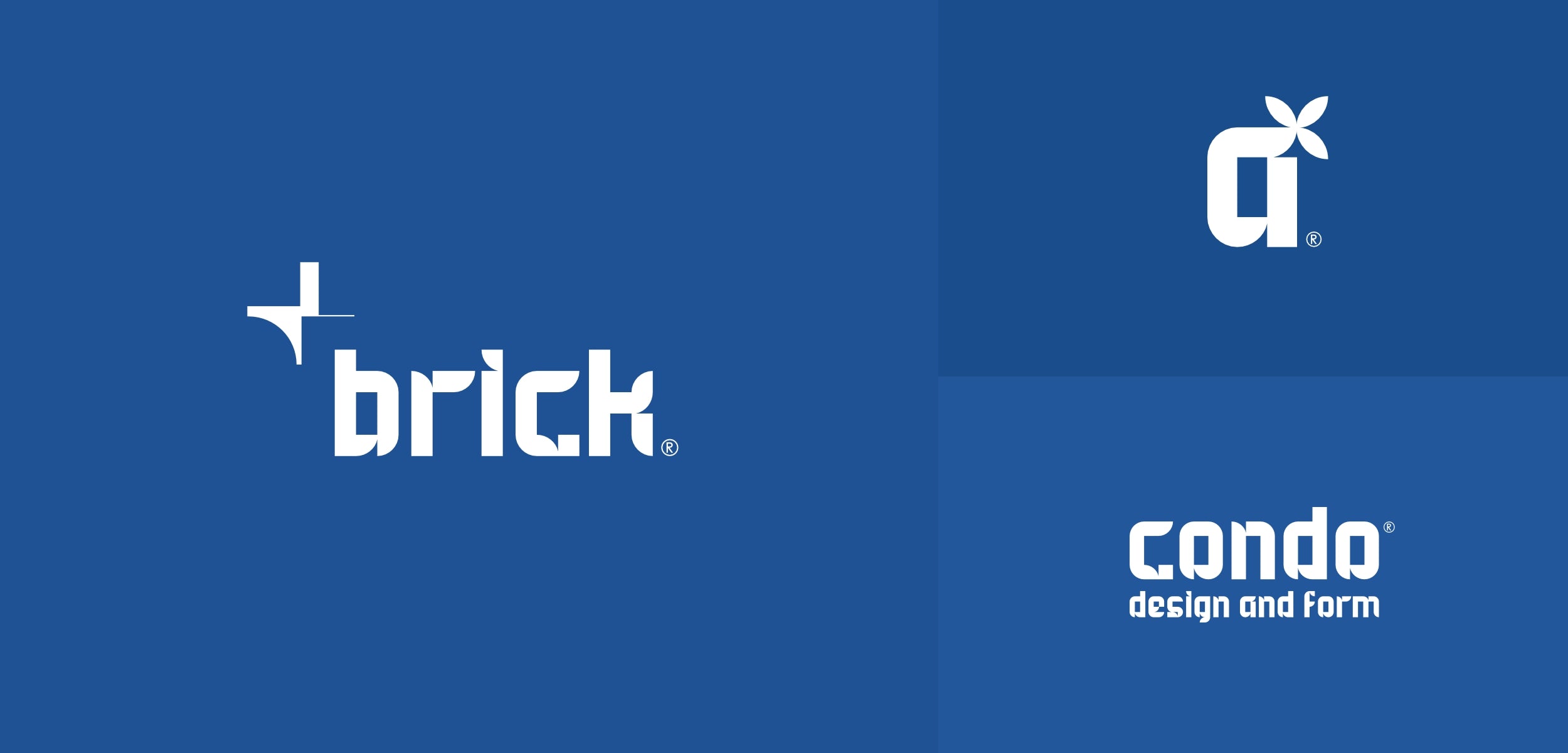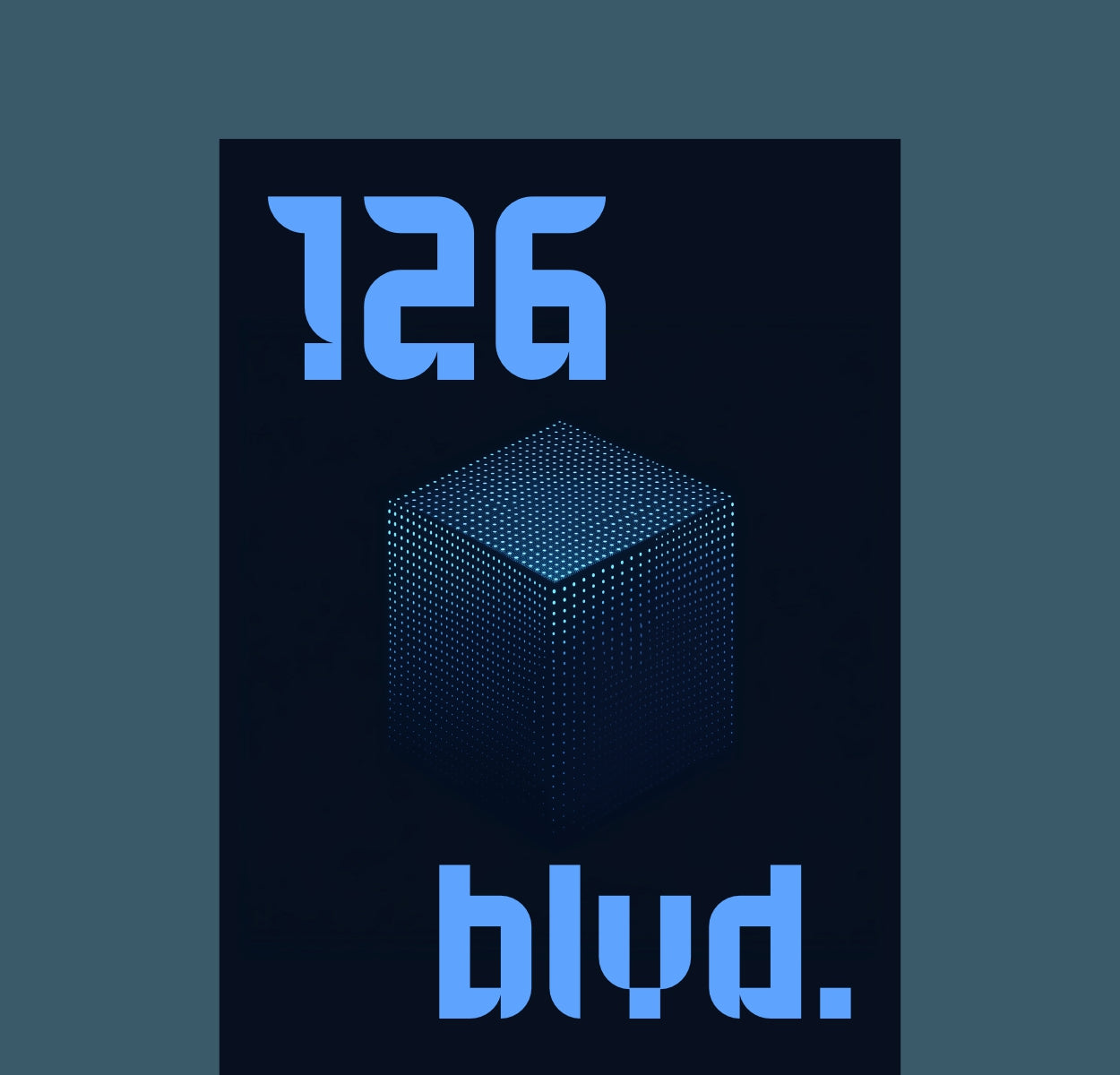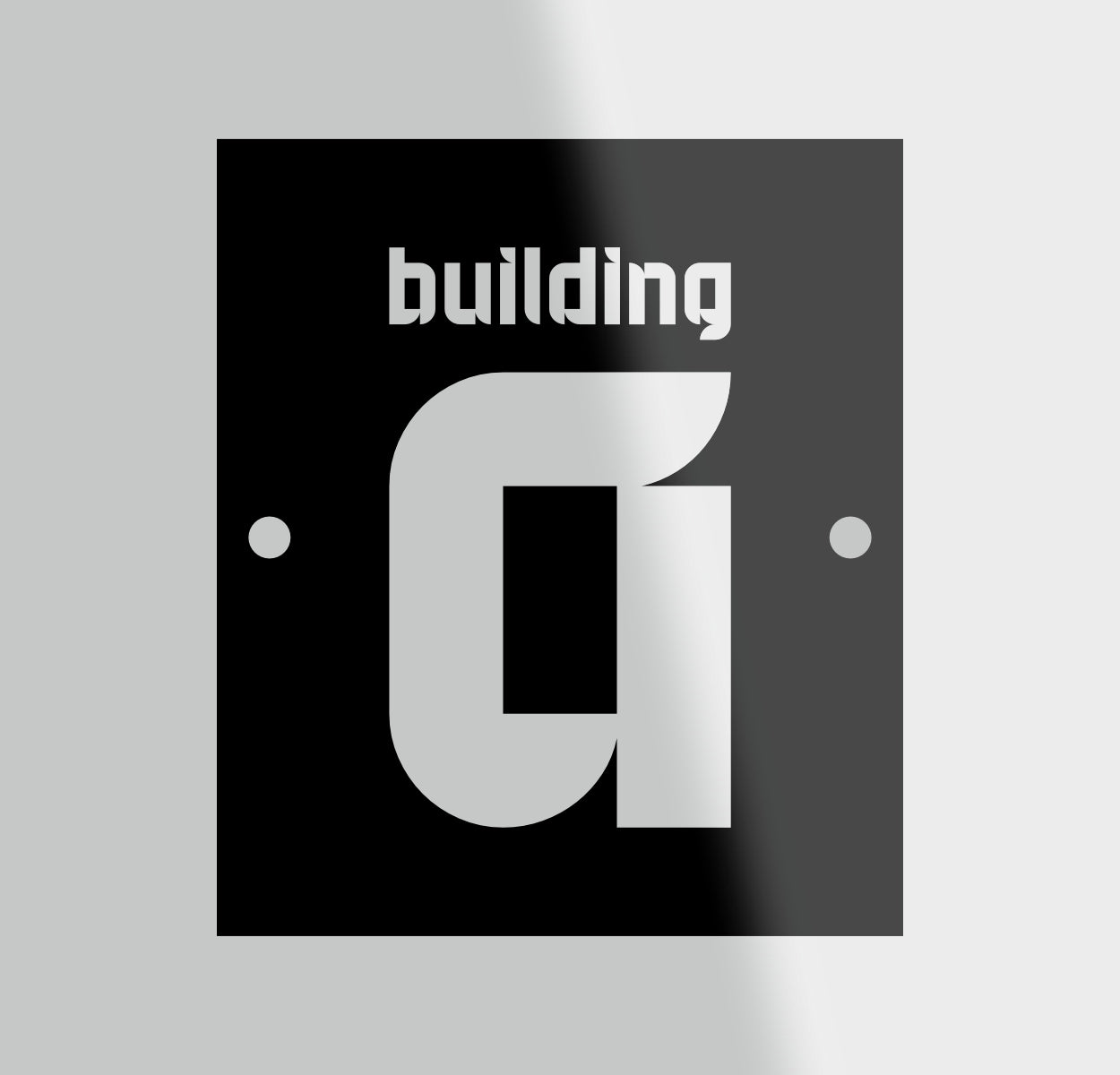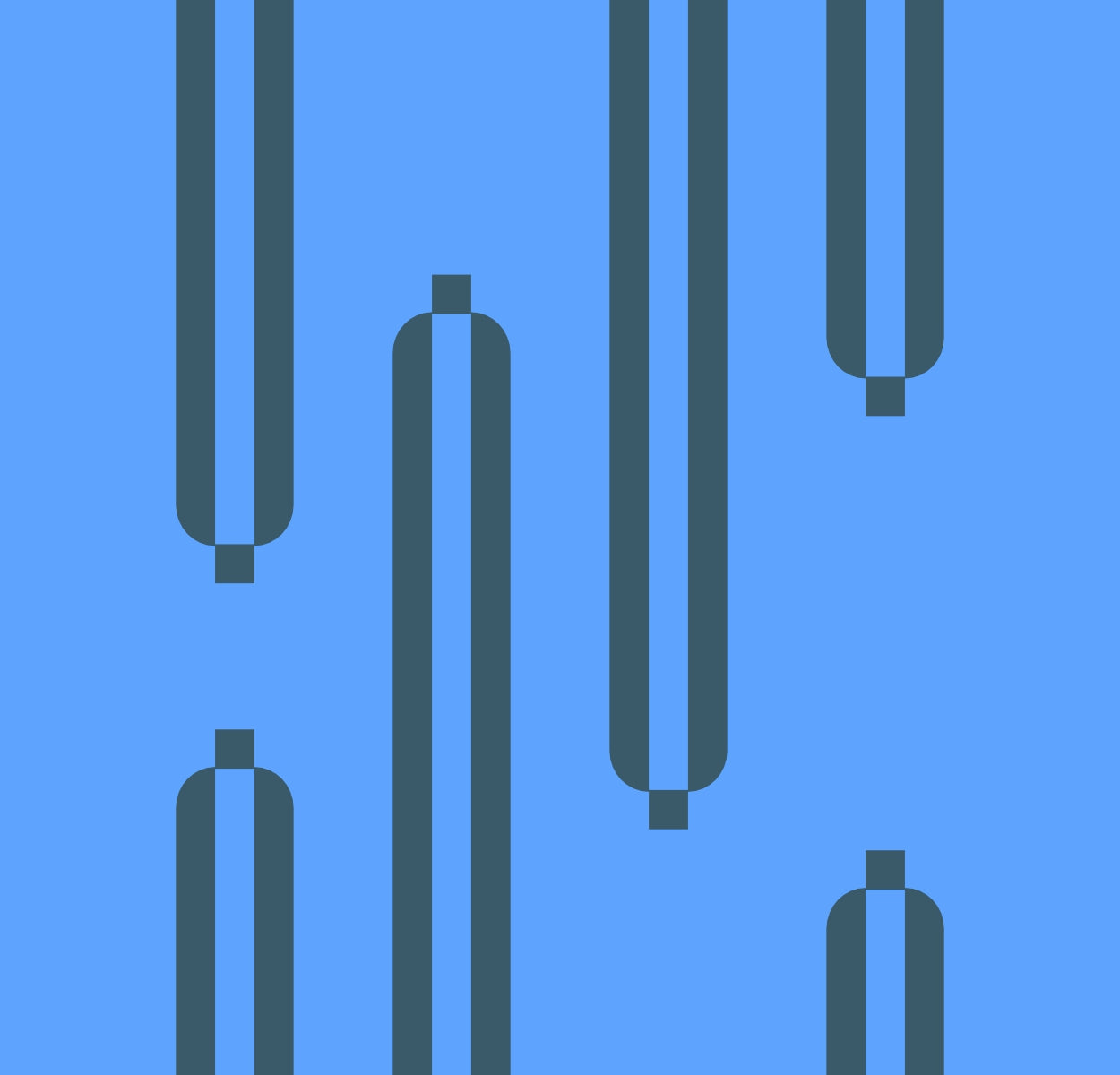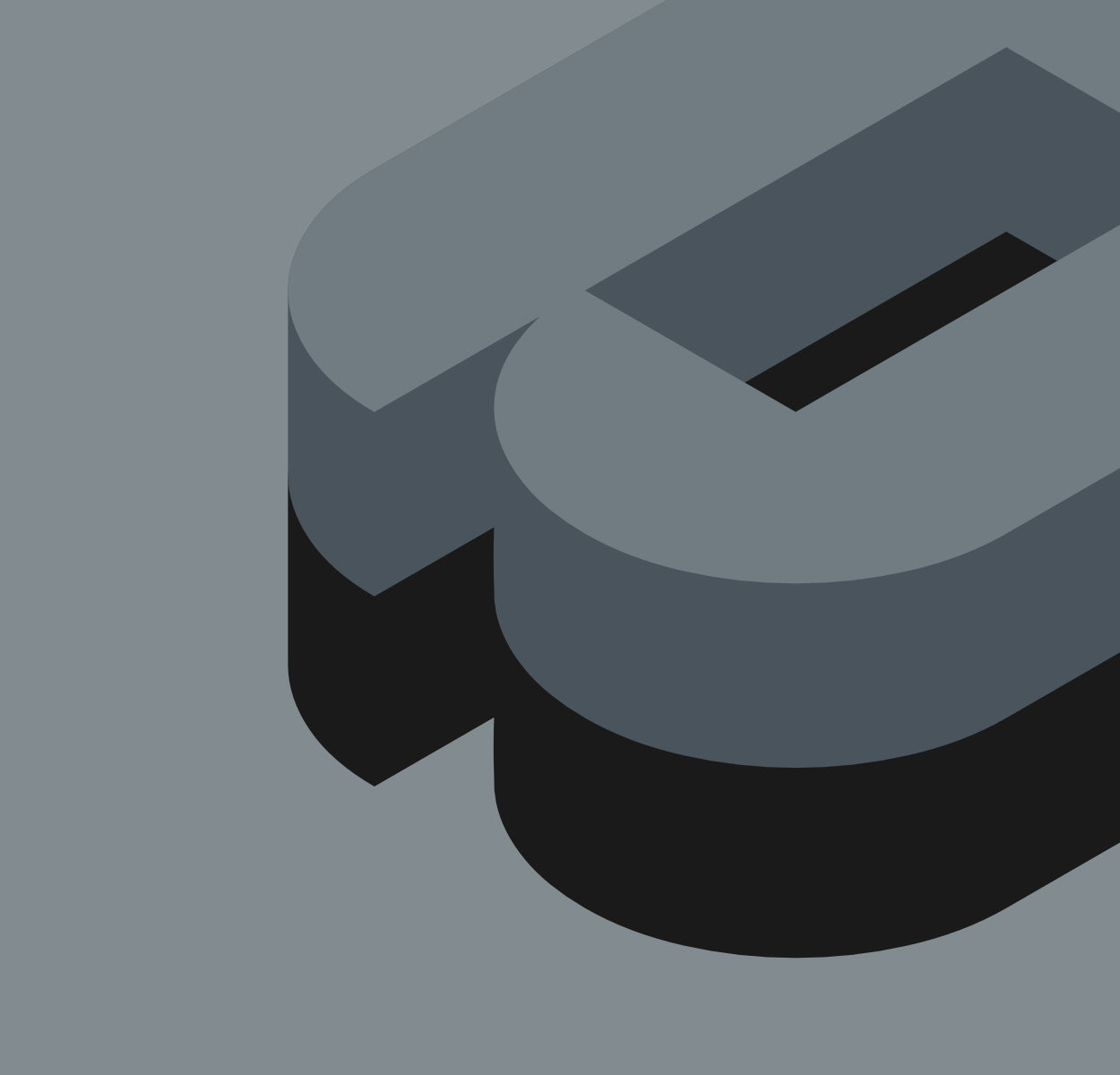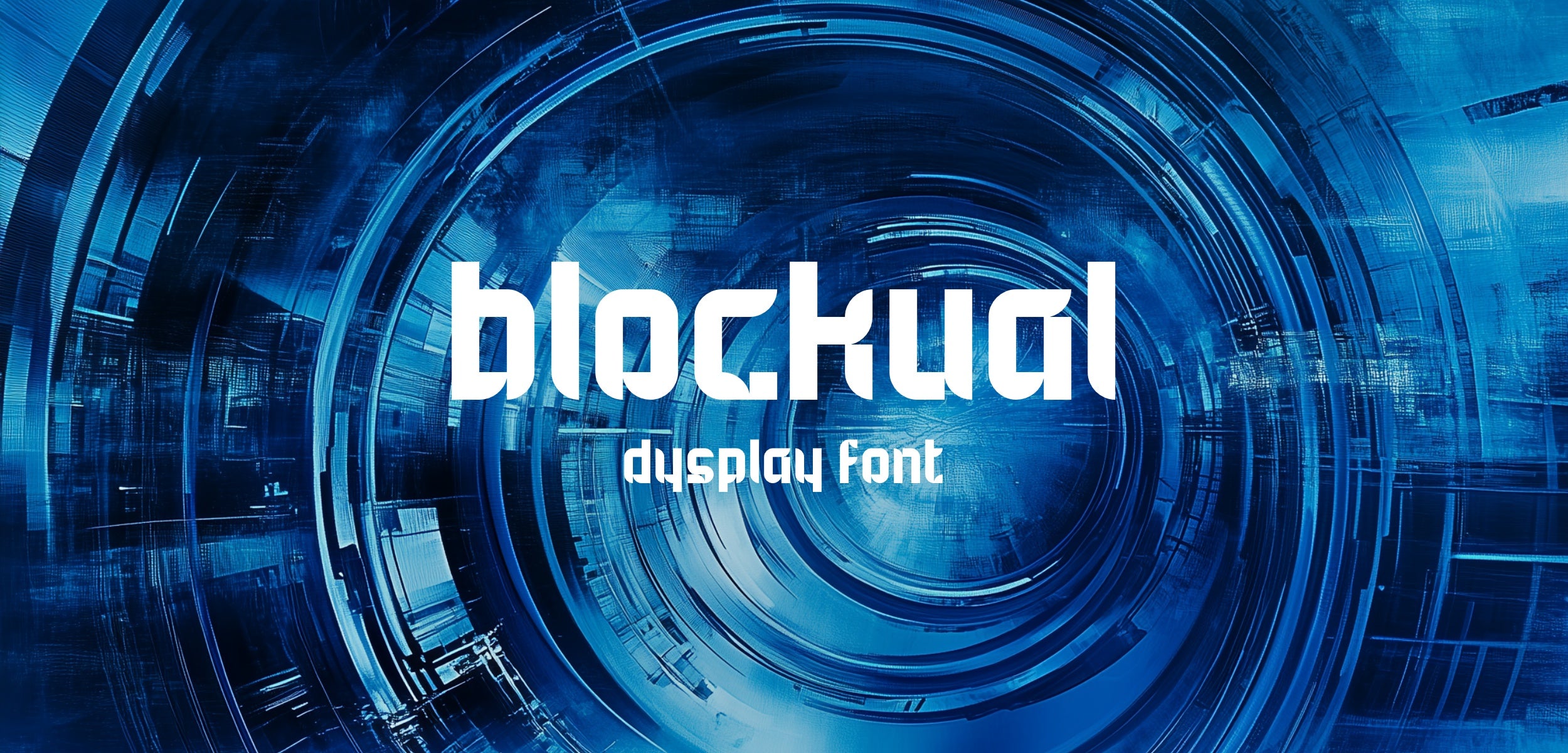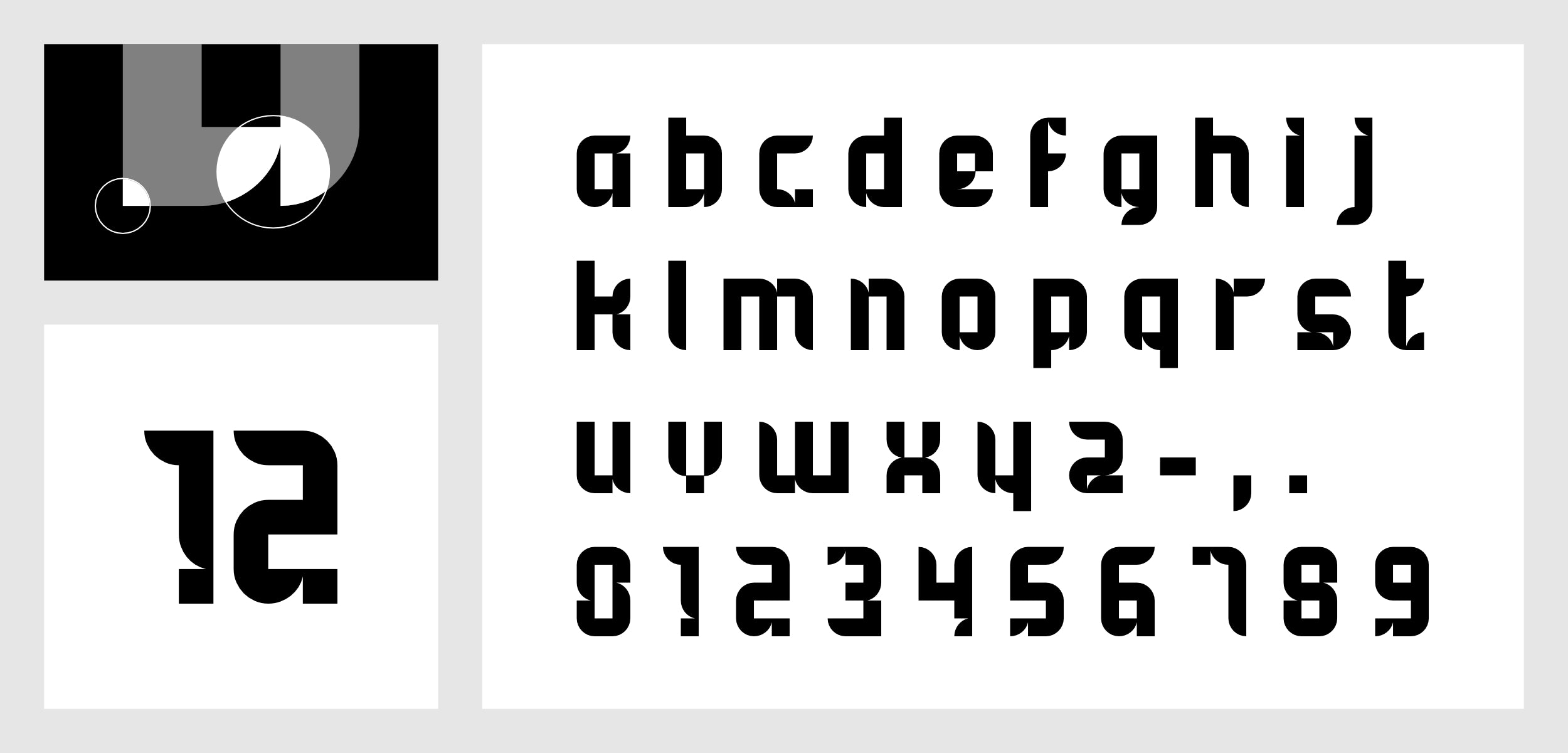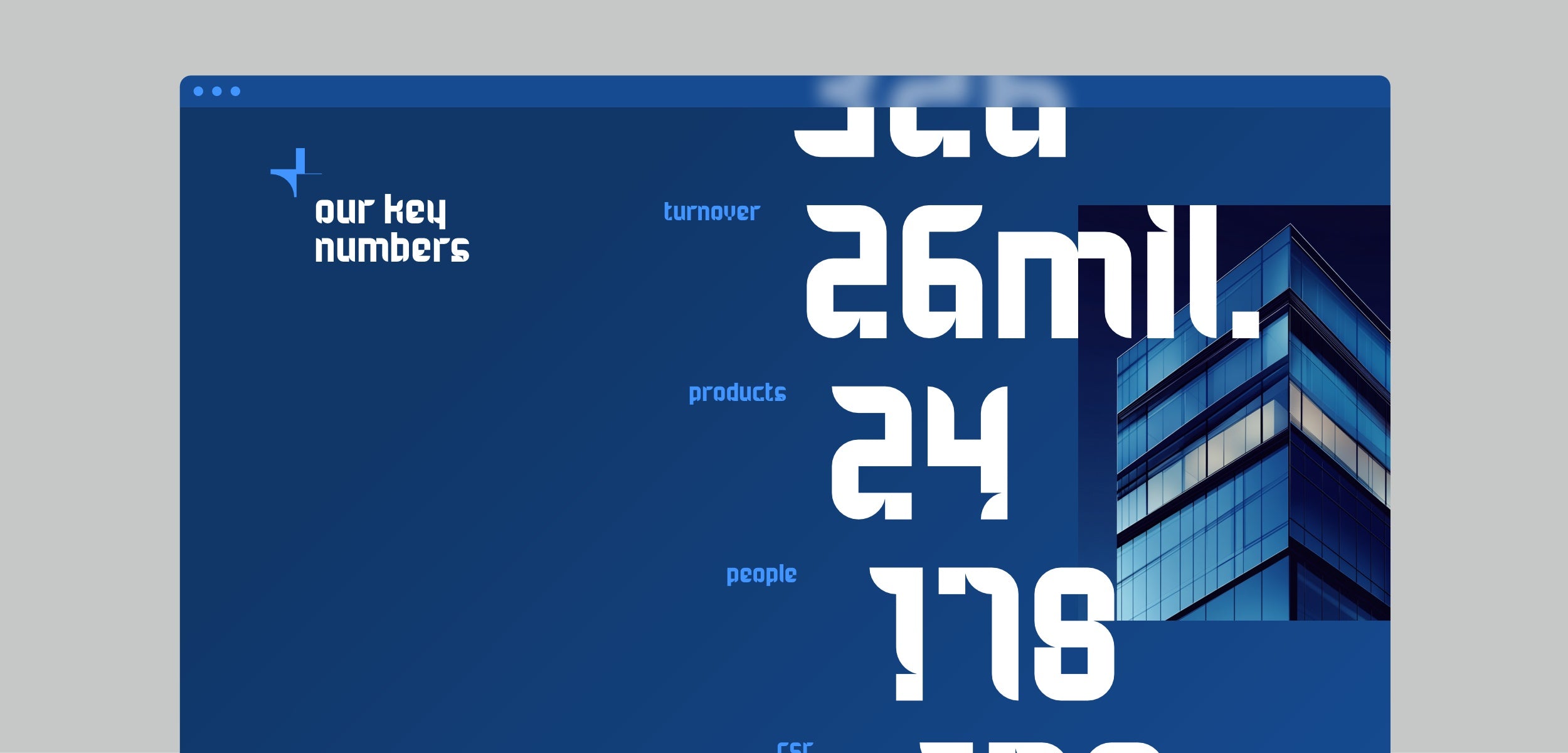
Use the segments of the font to create symbols for your brand identity
Create bold wordmark logos using only the font characters.
Use the elements of the font to create symbol plus wordmark structures for your brand identity projects.
Blockual’s bold, geometric forms create striking headlines, posters, and branding. Its square and quarter-circle structure ensures a strong, modern, and impactful visual identity.
Blockual’s rigid geometry enhances signage, wayfinding, and architectural elements. Its blocky shapes integrate seamlessly into industrial, modern, and minimalist spaces.
Blockual’s square and quarter-circle elements form unique patterns, grids, and abstract compositions, perfect for experimental typography, branding, and creative design structures.
Blockual’s modular letterforms translate into dynamic 3D typography, engraved designs, and futuristic modeling, adding depth and structure to digital and physical environments.